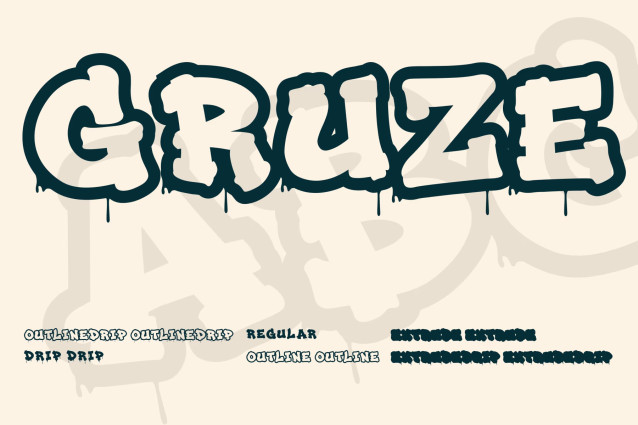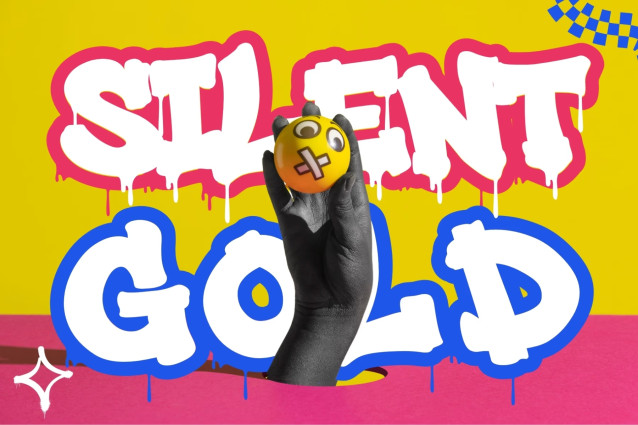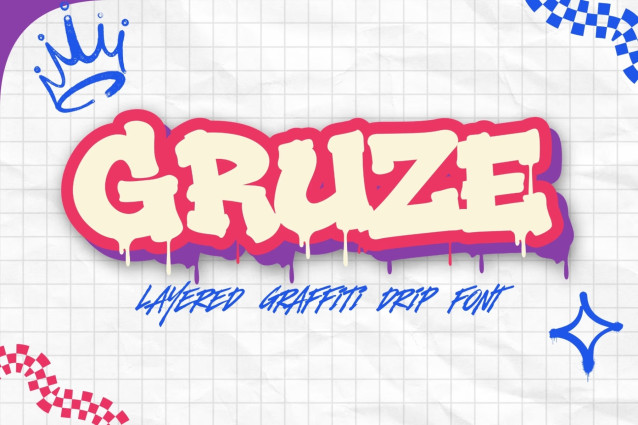
Gruze Font
Gruze is a powerful layered graffiti font designed for creators who want bold urban typography with a melted, dripping, and dimensional appearance. Combining solid lettering, outlines, extruded depth, and expressive drip variations, this graffiti font gives designers multiple ways to build eye-catching street-inspired typography. Gruze is made for projects that need strong visual impact, including streetwear graphics, logos, posters, album artwork, packaging, merchandise, social media designs, and modern urban branding.
The distinctive character of Gruze graffiti font comes from its layered design system and melted lettering aesthetic. Instead of offering only one static style, Gruze provides six coordinated styles that can be mixed and matched to create different visual effects. This melted graffiti font is especially useful for designers who want typography with a fluid street-art personality, strong silhouettes, and a contemporary urban attitude.
With its combination of solid, outline, extrude, and dripping variations, Gruze works as a versatile urban graffiti font for both simple and highly detailed compositions. Designers can create clean solid headlines, experimental dripping lettering, outlined typography, or dimensional display treatments depending on the visual direction of the project.